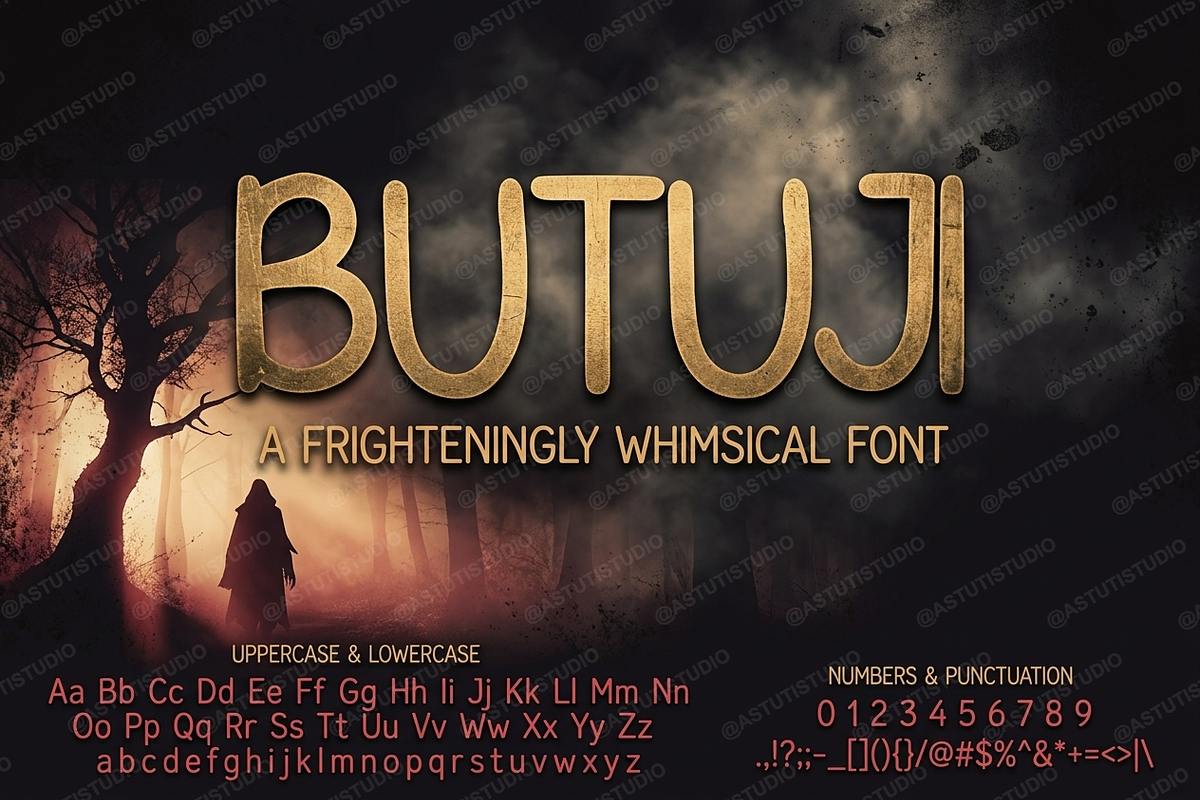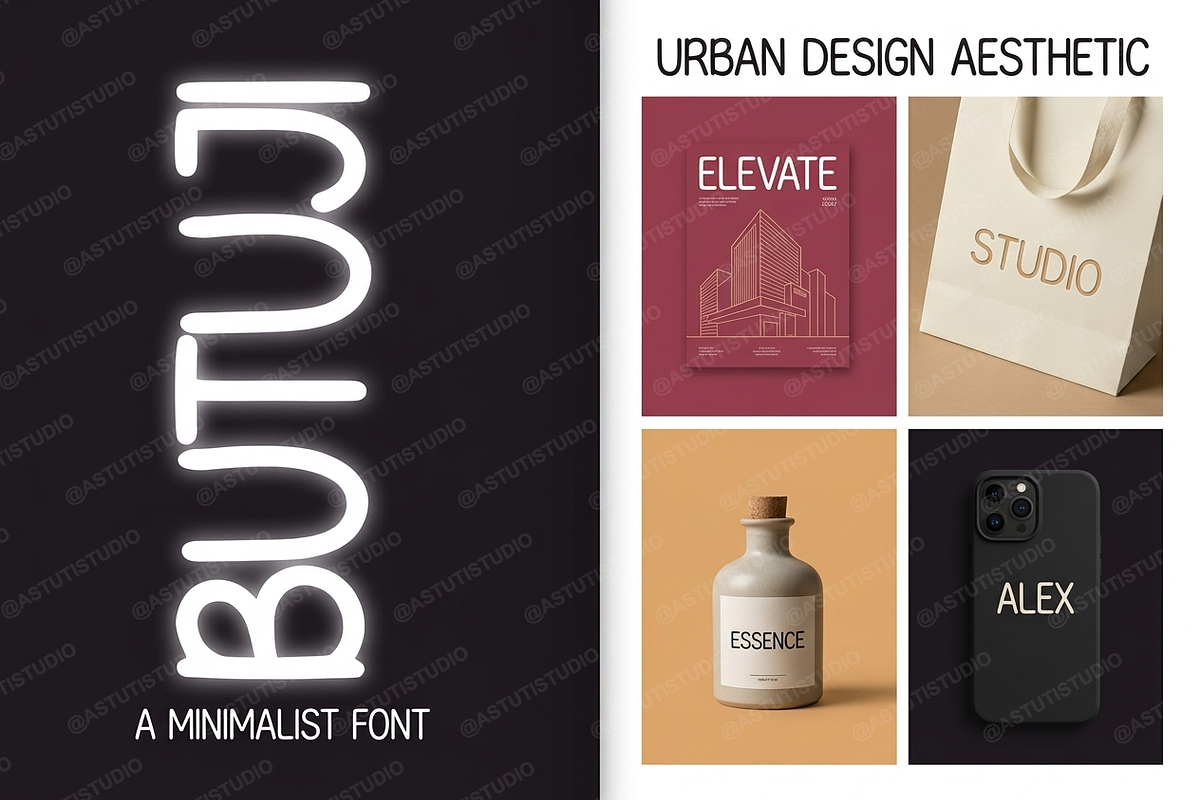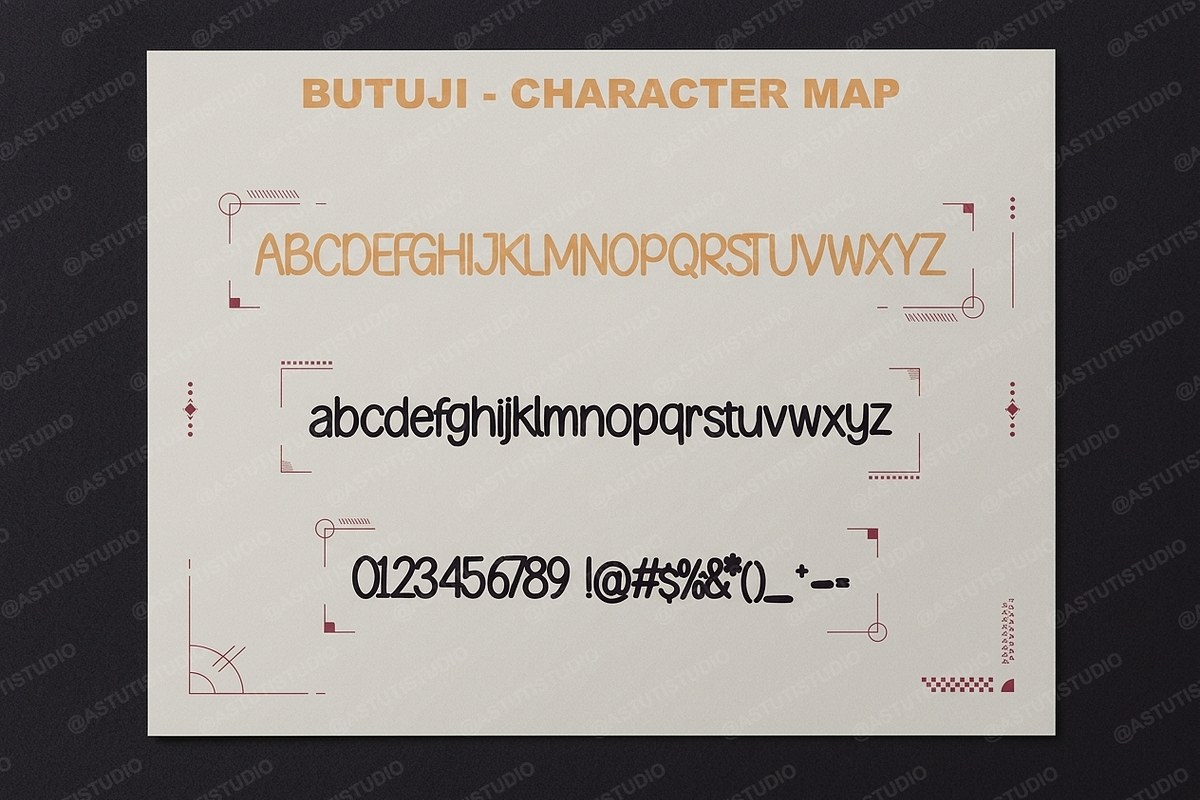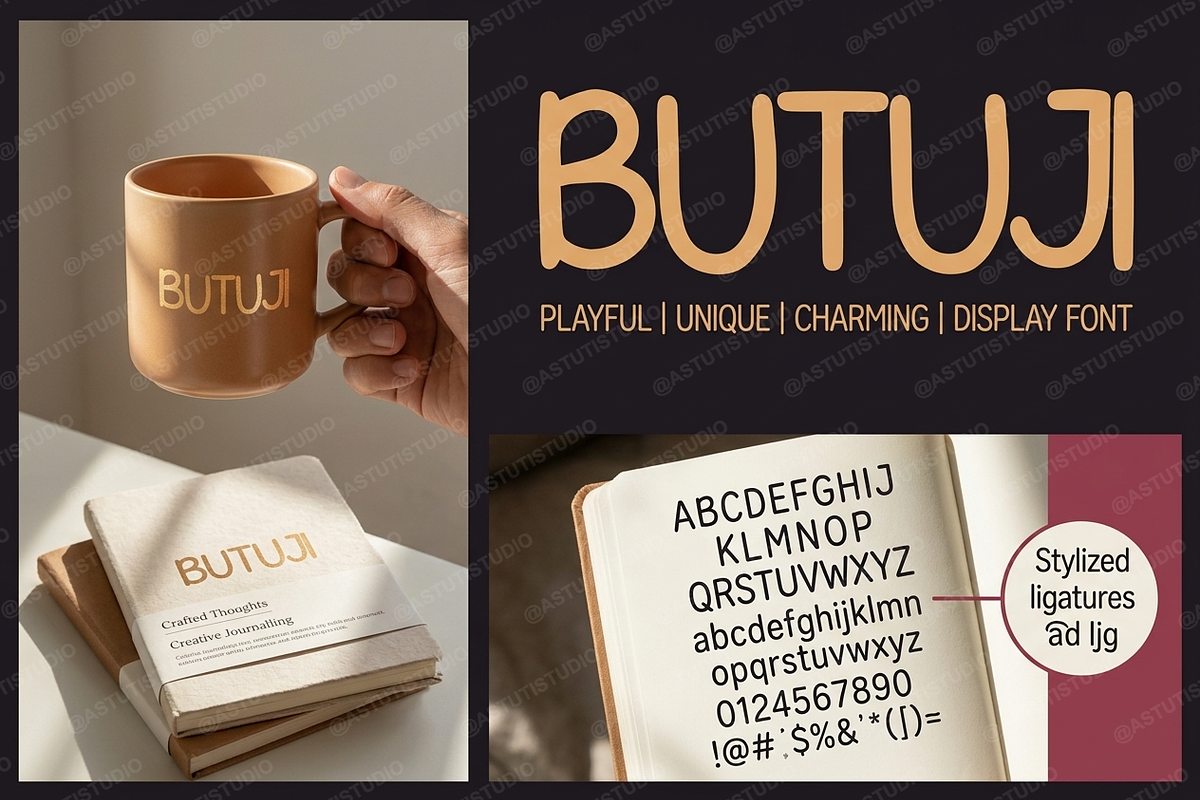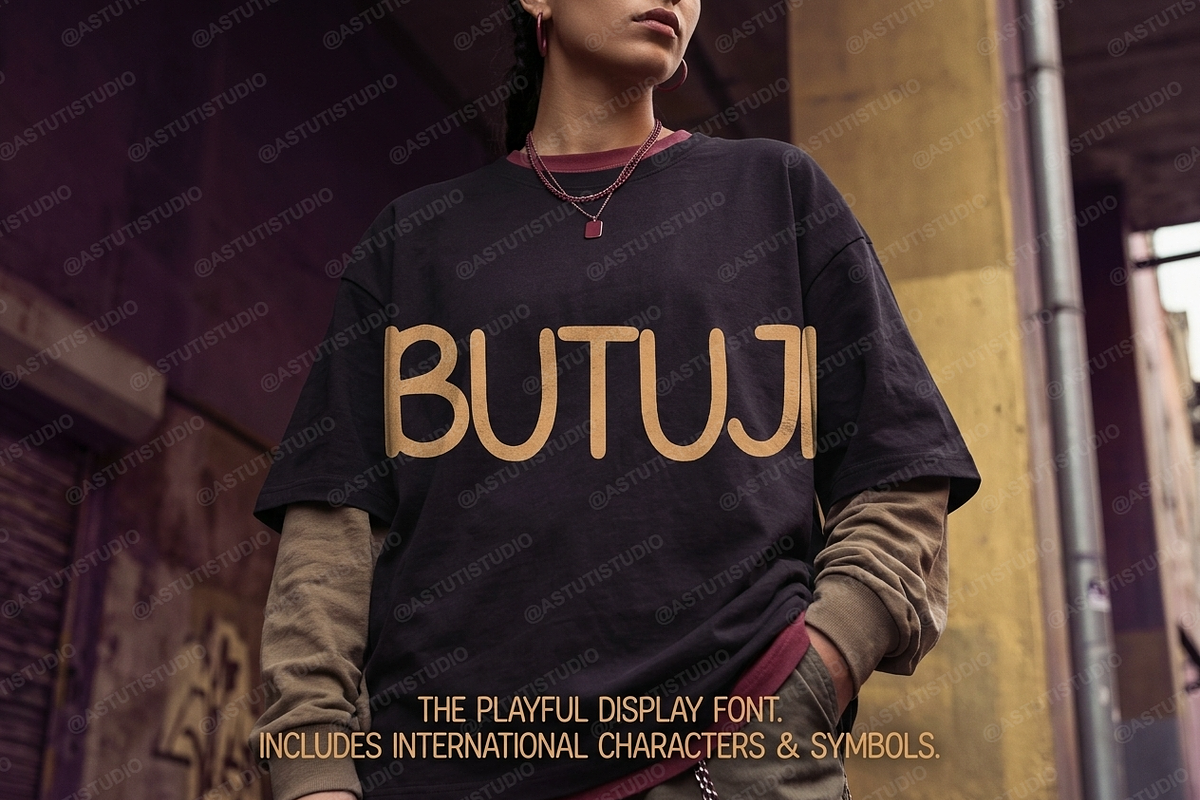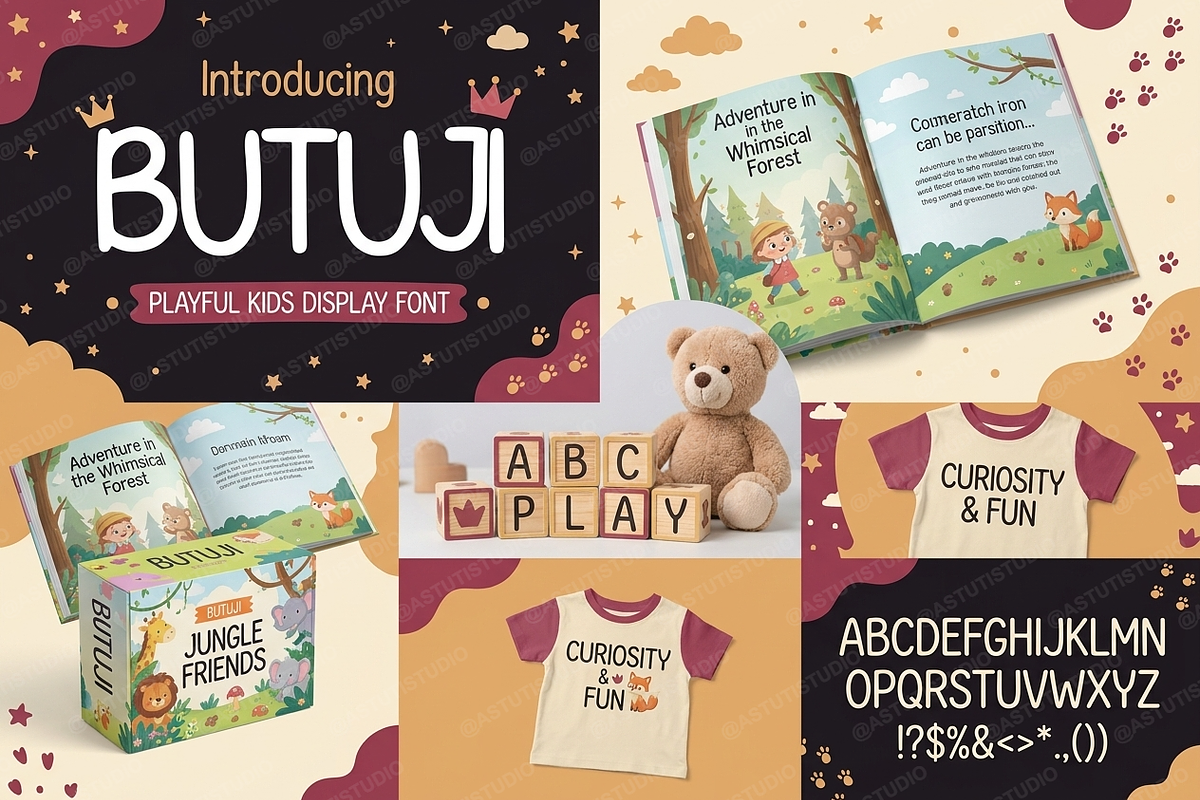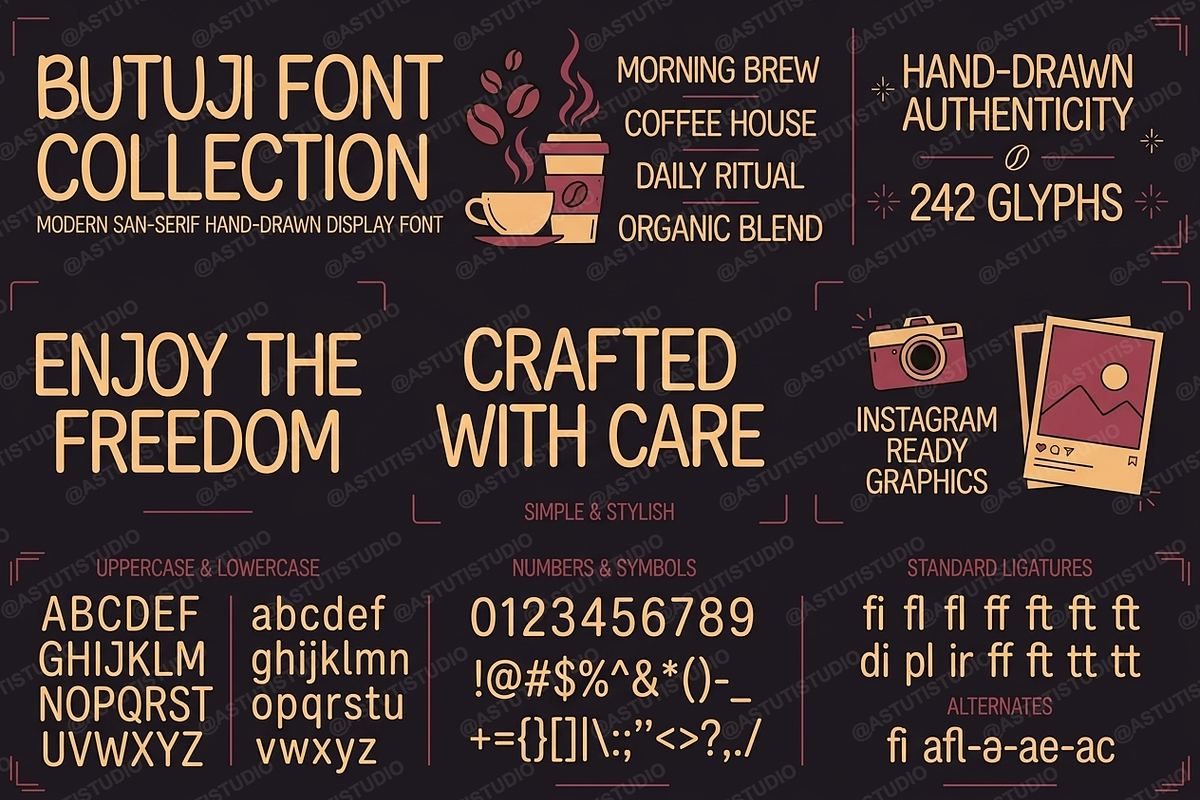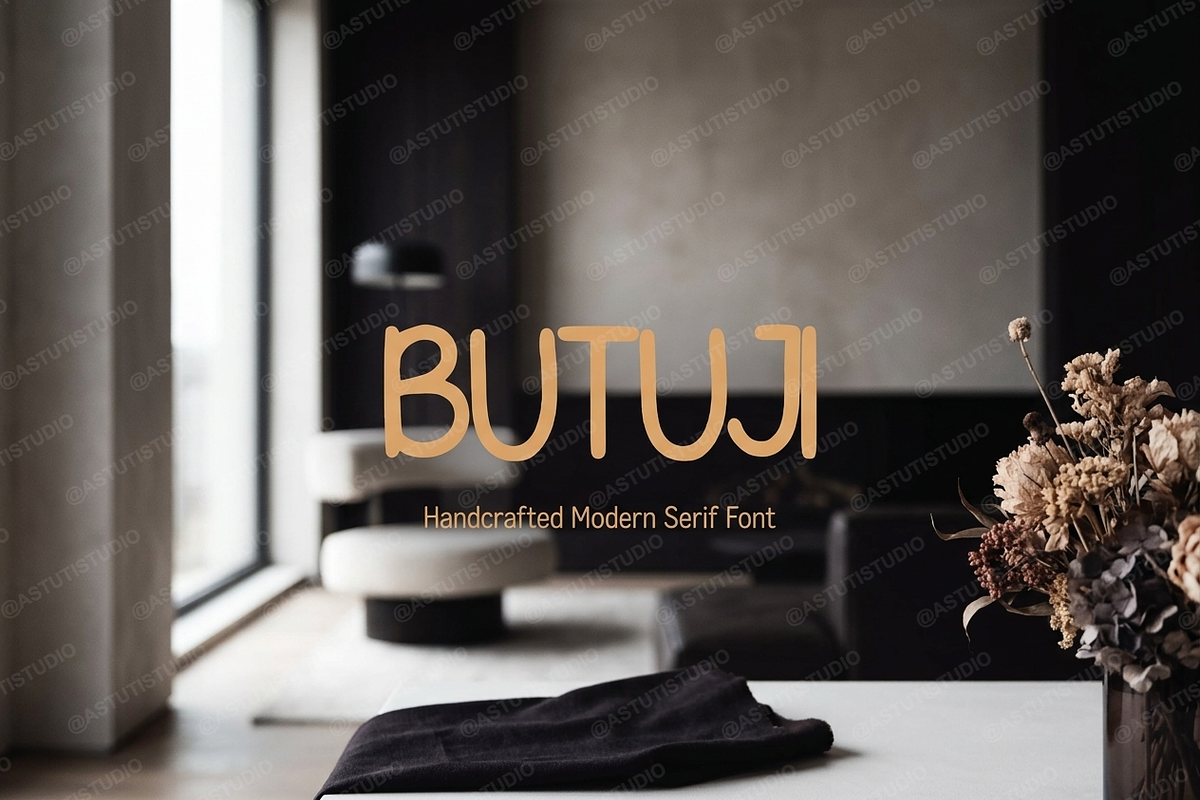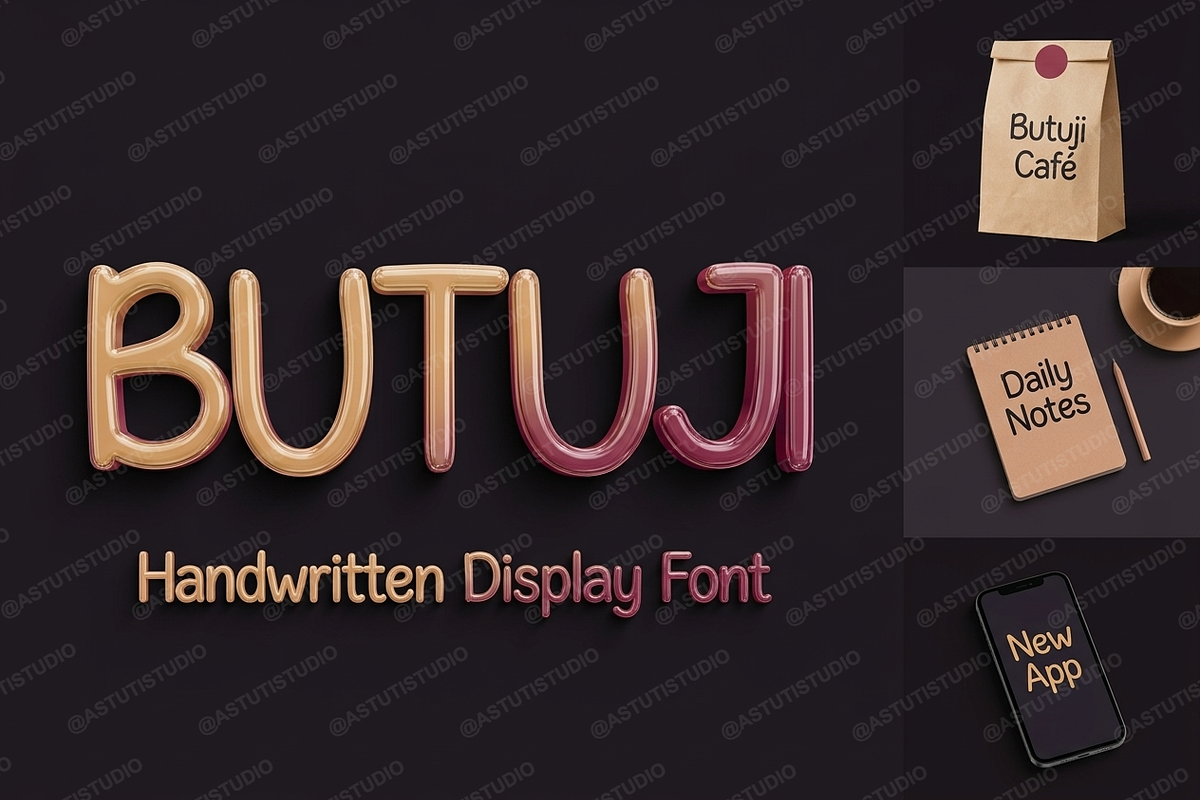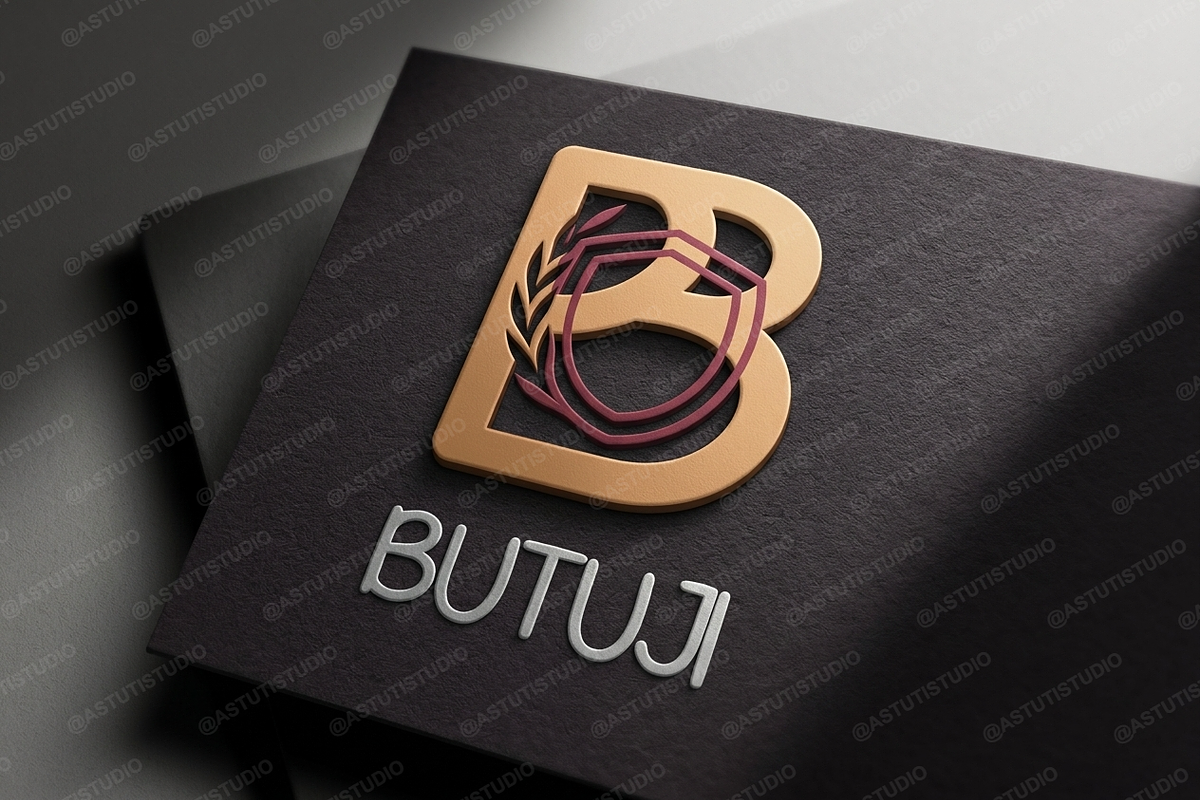
Butuji Typeface - Elegant Serif
Butuji is a refined modern serif typeface designed for the discerning creative. Its meticulously crafted letterforms strike a perfect balance between classic elegance and contemporary minimalism, making it the definitive choice for projects demanding sophistication. Inspired by the sharp lines of high-end fashion and architectural precision, Butuji ensures your designs—from subtle logotypes to commanding headlines—always convey prestige and luxury.
Precision Craftsmanship: Sharp, high-contrast serifs and balanced weight distribution for optimal readability.
OpenType Functionality: Includes a curated selection of elegant ligatures, discretionary ligatures, and stylistic alternates (requires OpenType savvy software).
Extensive Language Support: Character set covers standard Latin characters and support for over 90+ languages.
Versatility: Perfect for luxury product packaging, high-fashion editorials, refined social media campaigns, sophisticated invitations, and premium corporate identity.
Full set of Punctuation, Numerals, and extended Latin characters.